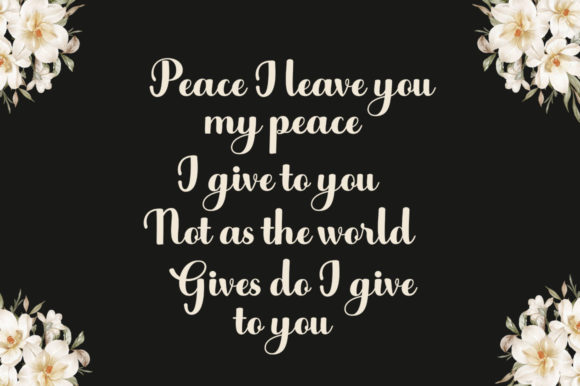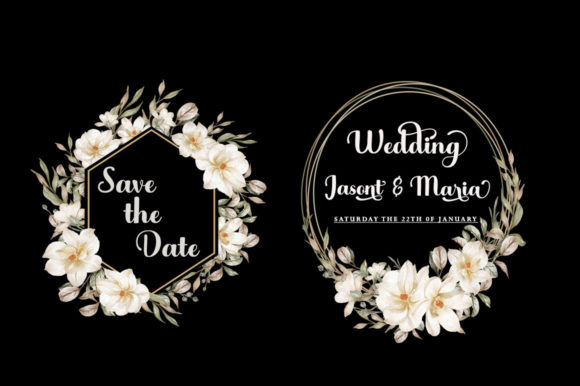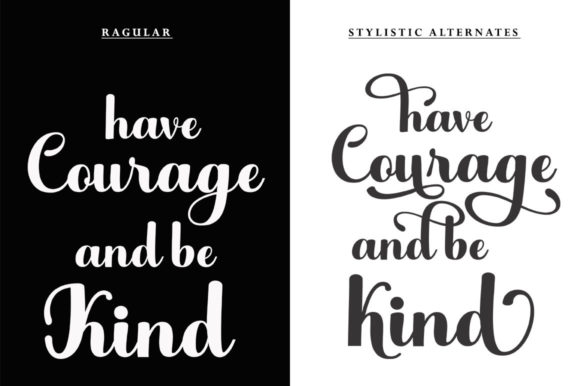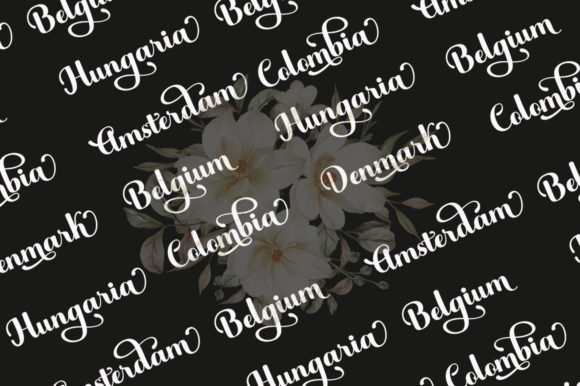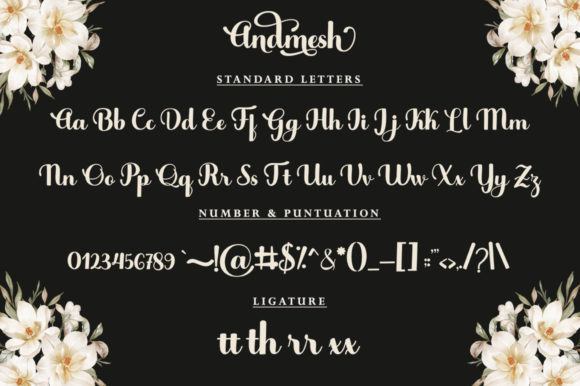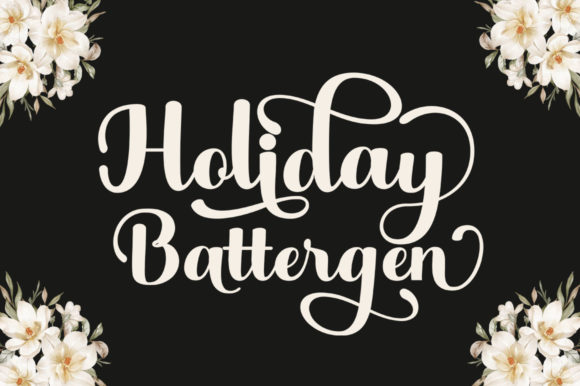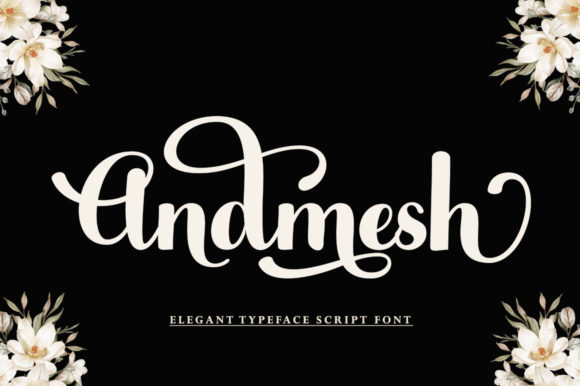
Introducing Andmesh Font: Elevate Your Designs with Romantic Elegance
Are you a designer or crafter looking for a typeface that exudes luxury and sophistication? Look no further than Andmesh Font, a stunning calligraphy font that is sure to add a touch of romance and elegance to any design project. With its unique dancing characters and PUA encoding, Andmesh Font is the perfect choice for those seeking to create beautiful and eye-catching designs.
The Beauty of Andmesh Font
Andmesh Font is a romantic and sweet calligraphy typeface that features characters that dance along the baseline, creating a sense of movement and fluidity. This beautiful font is perfect for designs that require a touch of luxury and sophistication, such as wedding invitations, branding, and packaging. The elegant and refined appearance of Andmesh Font makes it an excellent choice for designers and crafters who want to add a touch of class to their work.
PUA Encoding: Easy Access to Glyphs and Ligatures
One of the standout features of Andmesh Font is its PUA (Private Use Area) encoding. This means that users can access all of the amazing glyphs and ligatures with ease, making it simple to create beautiful and intricate designs. With PUA encoding, you can easily access the font’s extensive character set, including swashes, alternates, and ligatures, allowing you to add an extra layer of creativity and sophistication to your designs.
Andmesh Font is versatile and can be used for a wide range of design projects, including:
- Branding and packaging
- Digital graphics and social media assets
- Crafting and scrapbooking
Whether you’re creating a romantic wedding invitation or a luxurious brand identity, Andmesh Font is the perfect choice.
Tips for Using Andmesh Font
To get the most out of Andmesh Font, here are a few tips:
- Use a large font size to showcase the font’s elegant swashes and ligatures
- Pair Andmesh Font with a simple sans-serif font for a striking contrast
- Take advantage of the font’s PUA encoding to access a wide range of glyphs and ligatures
Why Choose Andmesh Font?
With so many fonts available, why choose Andmesh Font? Here are just a few reasons:
- Unique and elegant design that adds a touch of luxury to any design project
- PUA encoding for easy access to glyphs and ligatures
- Versatile and can be used for a wide range of design projects
| Author | studiorhd |
In conclusion, Andmesh Font is a stunning calligraphy typeface that is sure to elevate your designs with its romantic elegance. With its unique dancing characters, PUA encoding, and versatility, Andmesh Font is the perfect choice for designers and crafters looking to add a touch of luxury and sophistication to their work. Whether you’re creating a wedding invitation, branding, or packaging, Andmesh Font is sure to impress.